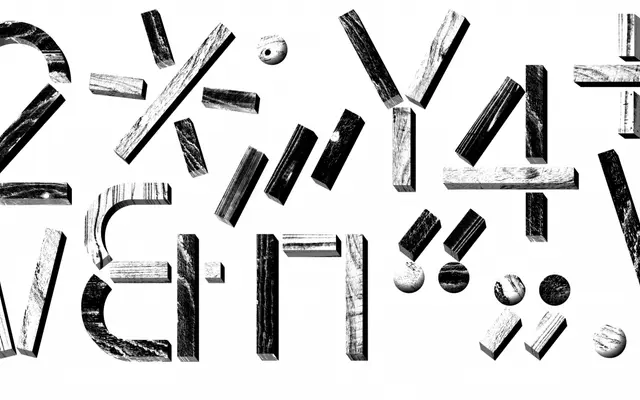
CMM Modul
Comma Type · Anna Cairns · 2024
A modular geometric display face by Anna Cairns that toggles between playful naiveté and constructivist rigidity through OpenType alternates.
Each letterform is assembled from a minimal set of shared modules, giving the family a consistent structural logic that can read as architectural or childlike depending on context. Stylistic sets cover alternative letterforms, a stencil version, square punctuation and a baseline-aligned descender option for tighter line spacing. Released in 2024 after four years of development, it exists as a single Regular weight with considerable character variety packed into OpenType features.
Built from a small set of repeated modules on a geometric skeleton, it is explicitly designed for display use and sits outside conventional text type categories. The stencil variant and modular construction reinforce its display orientation.